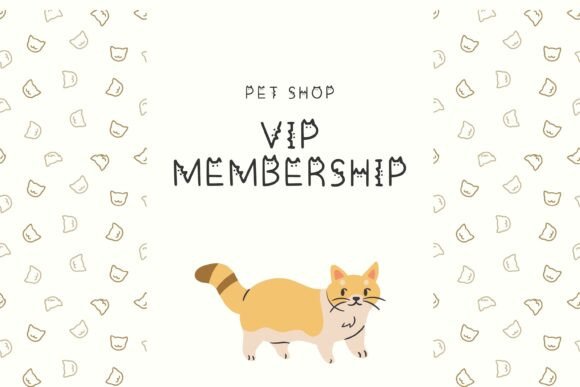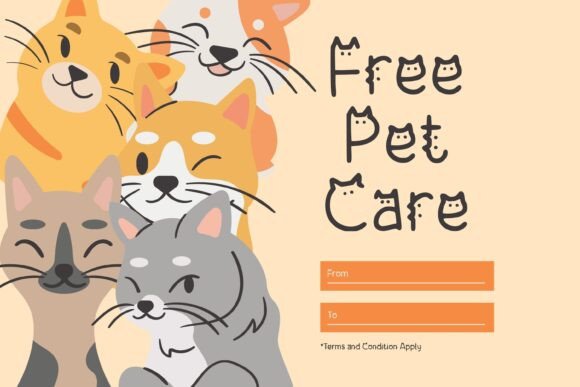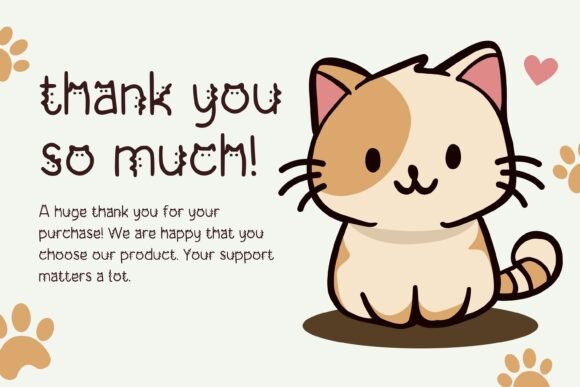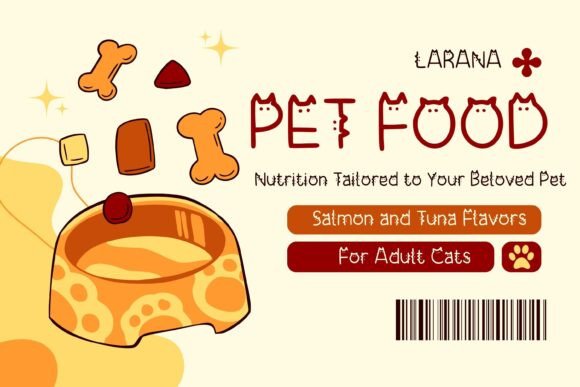
Introduction to Other Cattie Font
Elevate your designs with the purr-fect blend of quirk and charm that only “Other Cattie” can provide.
This distinct font carries the whimsical aura of our beloved feline companions, making it an ideal pick for any imaginative and artistic projects “Other Cattie” breaks free from usual font offerings, artfully integrating cat silhouettes for a delightful and personal flair on a multitude of design landscapes.
Key Features of Other Cattie Font
Why Choose Other Cattie Font?
Other Cattie Font offers exceptional quality and versatility, making it a valuable addition to your design toolkit. Whether you’re creating for personal projects or commercial use, Other Cattie Font delivers professional results.